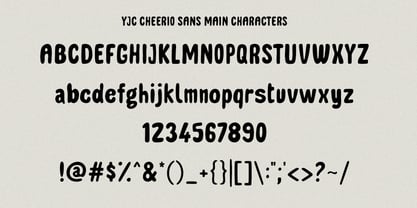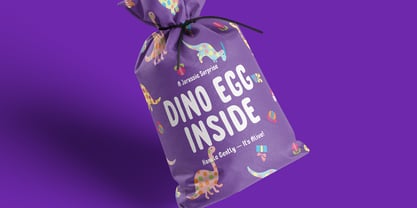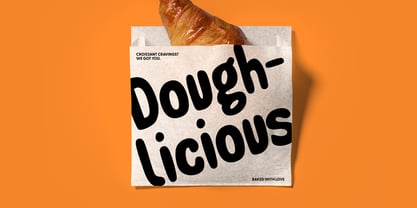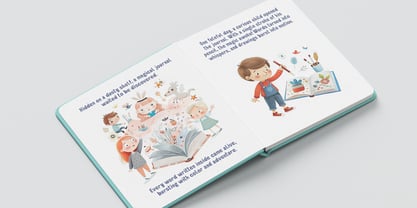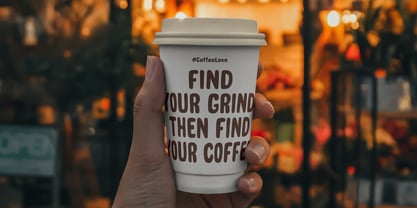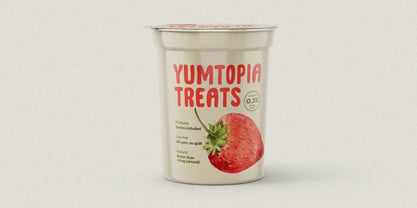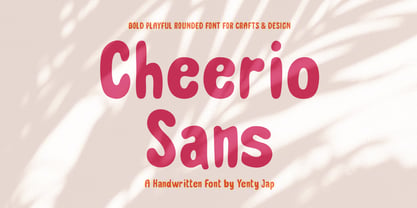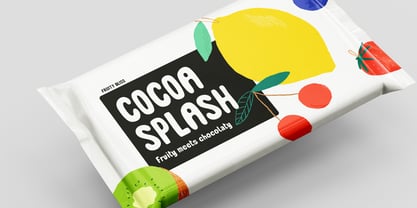
YJC Cheerio Sans
The YJC Cheerio Sans Font Family was designed by Yenty Jap and published by Yenty Jap Co. YJC Cheerio Sans contains 1 styles. More about this family
Meet YJC Cheerio Sans, a quirky, hand-drawn font brimming with personality. With its rounded edges, bold strokes, and playful vibe, this font adds warmth and a touch of charm to your designs. It’s approachable, fun, and charismatic—perfect for bringing a friendly, human touch to your creative projects.
1. A full set of uppercase and lowercase letters with multilingual support
2. Numbers, punctuation, and symbols
Perfect For:
• Invitations & Greeting Cards: Whether it’s a birthday, wedding, or just a hello, Cheerio Sans makes your messages feel personal and heartfelt.
• Children’s Products: Its playful energy pairs beautifully with toy packaging, books, or anything made for little ones.
• Branding for Small Businesses: Great for cozy coffee shops, artisan bakeries, or boutique stores looking to feel approachable and unique.
• Social Media Graphics: Create attention-grabbing posts that radiate joy and authenticity.
• DIY Craft Projects: Circuit users and crafters will love how versatile and easy-to-read this font is, even at smaller sizes.